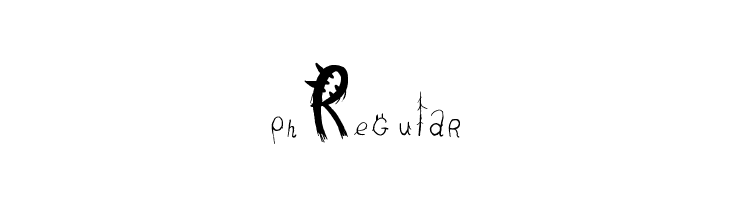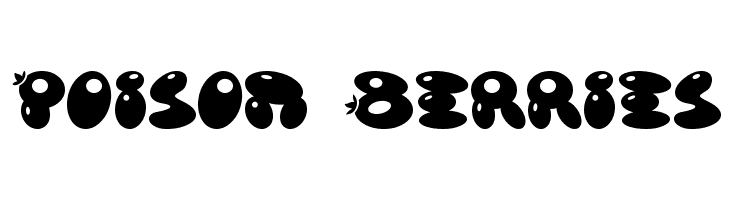
( - www.bakuro3.com/ )
A decorative font with jagged, artistic strokes and a wild, untamed appearance.
( Fonts by Plutarco Zazueta )
A decorative and artistic font with nature-inspired and abstract elements.
( Fonts by Levi Halmos )
A playful, bubble-like font with whimsical leaf accents.
A bold, decorative font with card suit symbols and a double-line effect.
( https://www.behance.net/katharinehoward )
A modern, geometric font with arrow-like accents and clean lines.